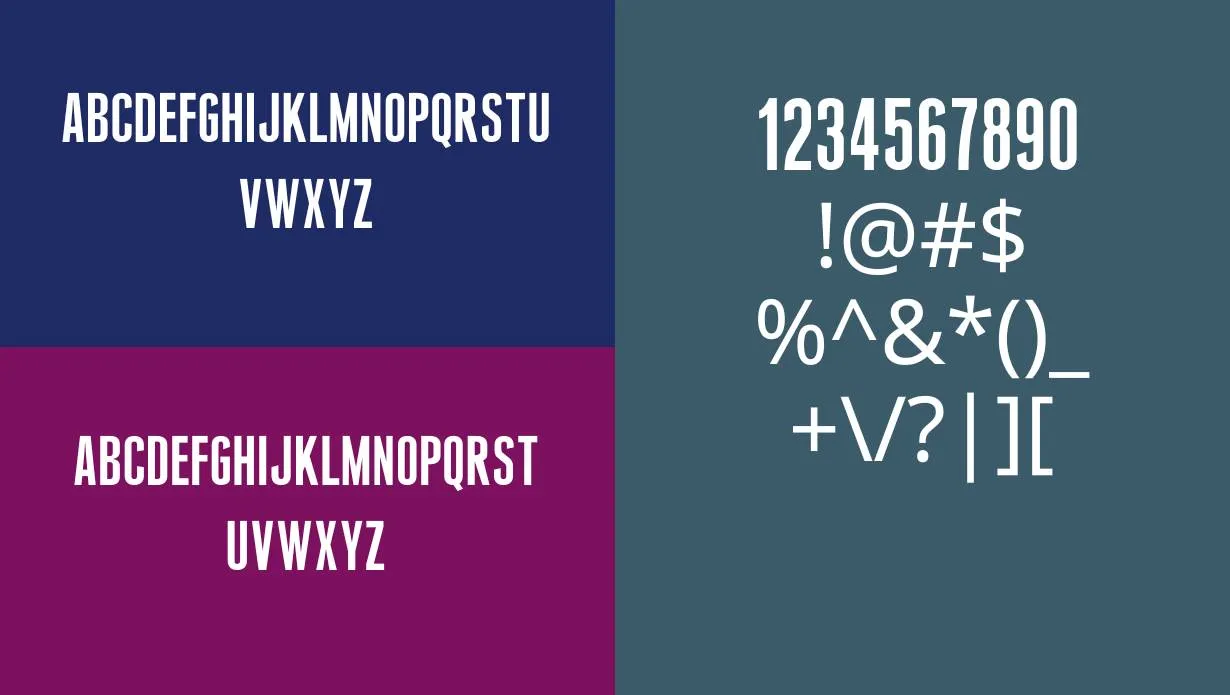
Now we talk about a unique and interesting typeface Astros Font. This amazing font was designed by NestType. All characters are in capitalized form which makes it more attractive and gives a very strong look. It has many characters and glyphs which makes it perfect to use in many projects.
You can use it for making logos for different brands, movie titles, movie logos, posters, banners, brochures, and much more.